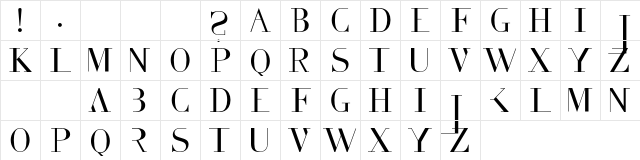
Vaganz Medium
| Foundry | Daniel Angermann |
| Designer | Daniel Angermann |
Design Context for Vaganz Typeface
Vaganz is a composed and adaptable typeface that performs quietly and consistently across a wide range of design contexts.